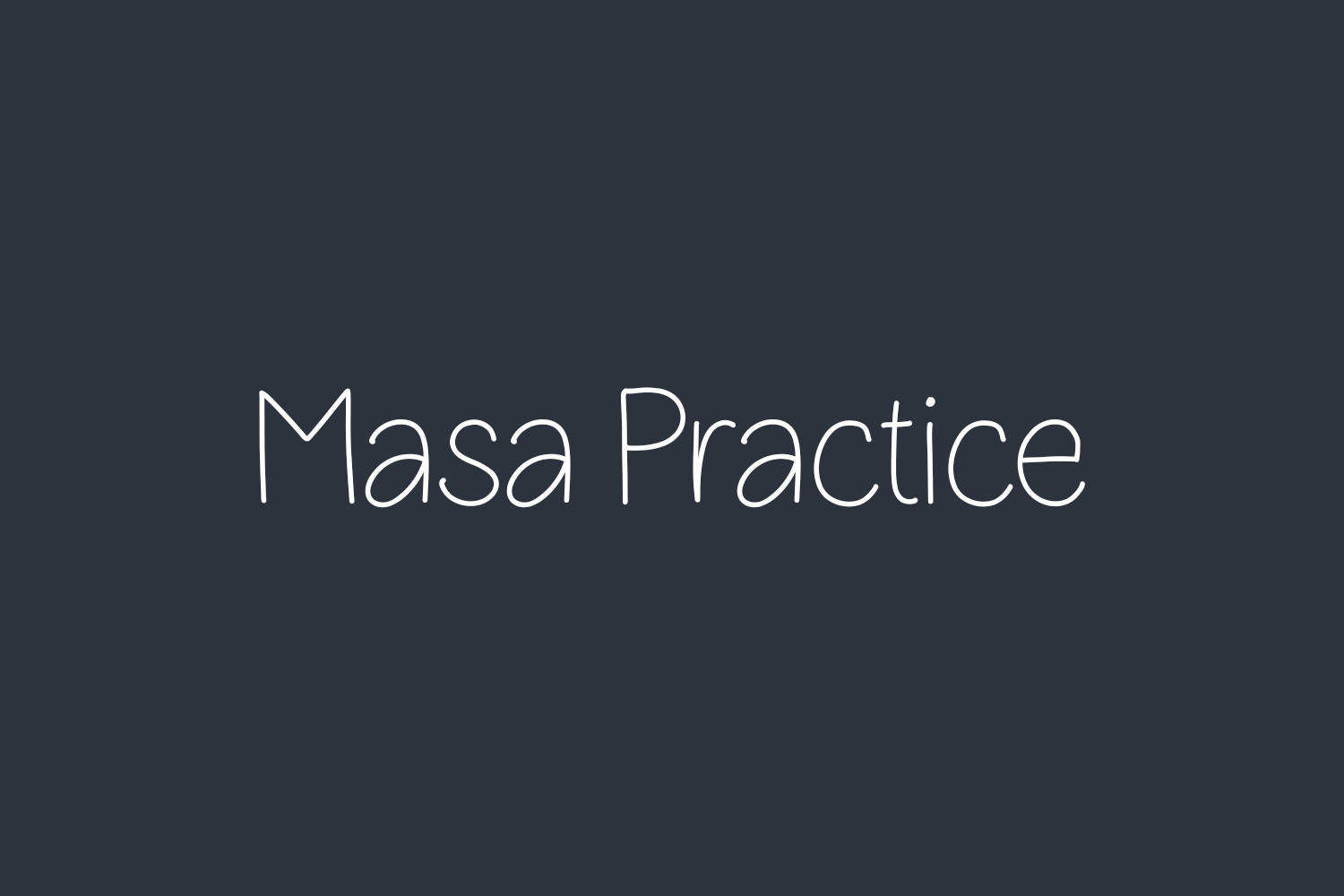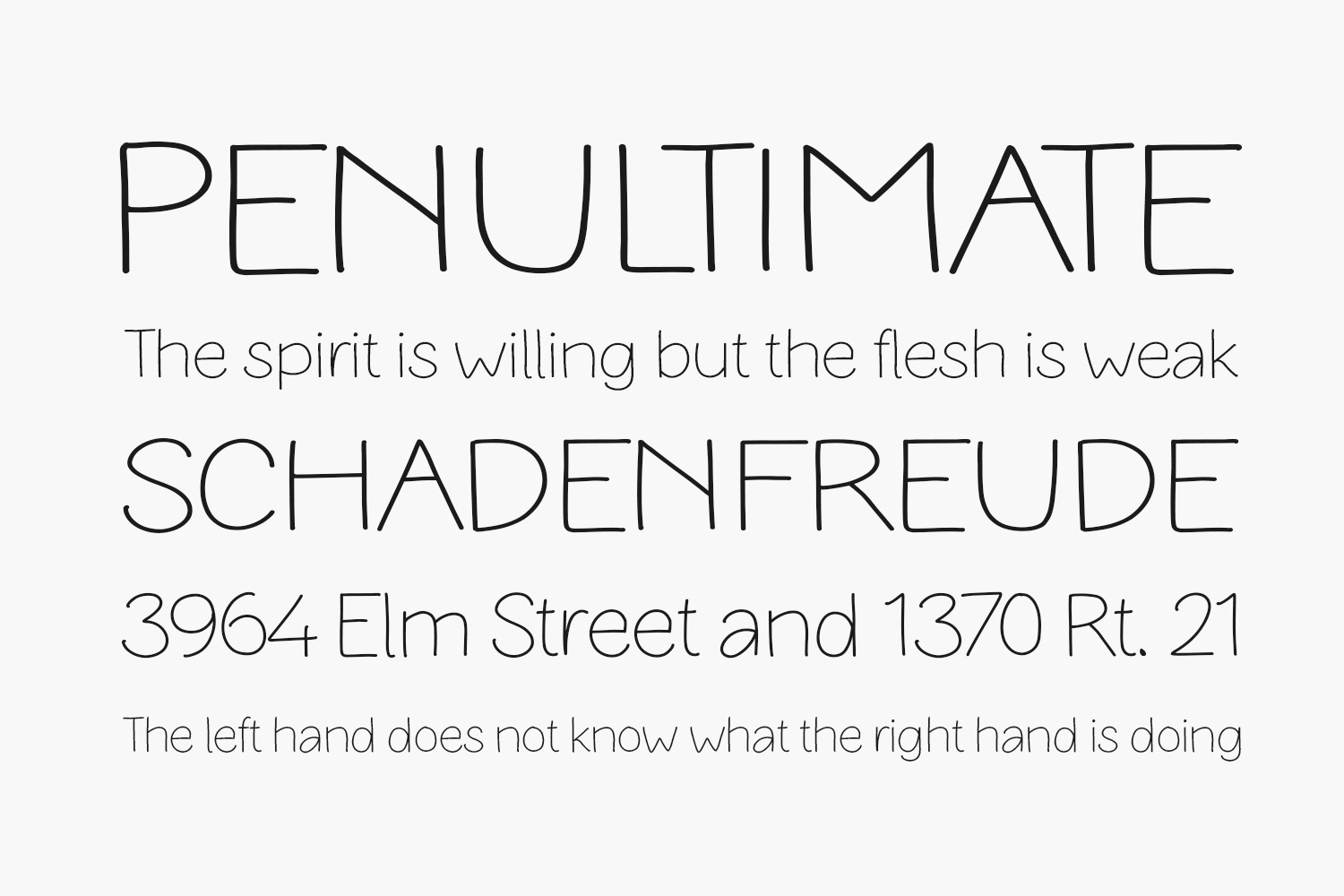
Explore the versatility, style, and playful charm of Masa Practice Free Font – a handwritten font designed to elevate a variety of uses, from greeting cards to headlines and beyond! Infuse your creative projects with its clean and exquisite vibe for a distinctive touch. Masa Practice Free Font is free for personal use only. Please purchase the full version for commercial use.
Designed by Masa Aska Sanurumi